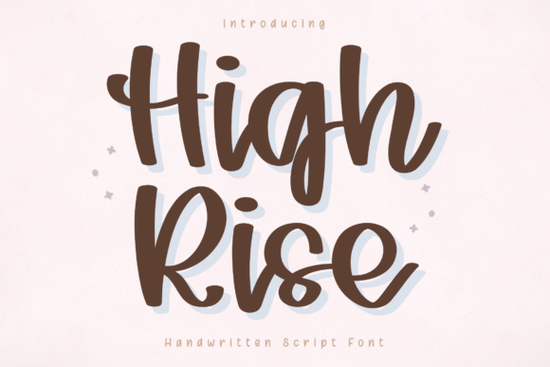
High Rise Font is a versatile and easy-to-use script typeface that brings a personal, handcrafted feel to your designs. Whether you're working on digital projects, print materials, or crafting with tools like Cricut, this font offers a natural look without sacrificing clarity. Its soft curves and slightly relaxed shapes make it ideal for everything from social media posts to branding and stationery.
If you're looking for a font that feels warm and approachable, High Rise Font is an excellent choice. It’s perfect for designers, crafters, and small business owners who want to add a touch of personality to their work. The font’s clean strokes ensure it works well in both digital and physical formats, making it a reliable option for everyday use.
One of the standout features of High Rise Font is its adaptability. It can be used across various platforms and projects, including digital planners, greeting cards, and even custom t-shirt designs. Its readability makes it suitable for both short phrases and longer text, giving you flexibility in how you incorporate it into your creative workflow.
Why choose High Rise Font?
When it comes to handwritten fonts, not all are created equal. High Rise Font stands out because of its balance between style and functionality. Unlike some scripts that can be hard to read, this font maintains a clear structure while still feeling organic. This makes it especially useful for projects where legibility is important, such as signage or product labels.
For those who enjoy using fonts in a variety of contexts, High Rise Font offers a great foundation. It pairs well with other typefaces and can be used in both bold and light weights depending on the design needs. Whether you're creating a minimalist layout or something more decorative, this font adapts well to different styles.
How to use High Rise Font effectively
There are many ways to incorporate High Rise Font into your creative projects. For example, it works well in social media graphics, where a friendly and approachable tone is often desired. It’s also a popular choice for wedding invitations, thank-you notes, and other personal or professional documents that benefit from a handwritten aesthetic.
Crafters who use cutting machines like Cricut or Silhouette will find that High Rise Font performs smoothly, ensuring clean cuts and sharp details. Its consistent stroke width helps prevent issues during the cutting process, saving time and reducing errors. This makes it a practical choice for anyone who relies on digital cutting tools.
If you're running a print-on-demand business, this font can help you create unique and appealing designs for products like mugs, T-shirts, and stickers. Its friendly appearance can make your brand feel more relatable and authentic, which is especially valuable in competitive markets.
Whether you're a designer, crafter, or small business owner, High Rise Font is a valuable addition to your toolkit. Its combination of style, readability, and versatility makes it a go-to choice for a wide range of creative applications.
Remember, the goal is to create something that not only looks good but also communicates clearly. High Rise Font helps achieve that balance, making it a smart choice for anyone looking to add a personal touch to their work.
Take a look at how this font can enhance your next project and see if it fits your creative vision. With its friendly and adaptable nature, High Rise Font is sure to become a favorite in your collection.